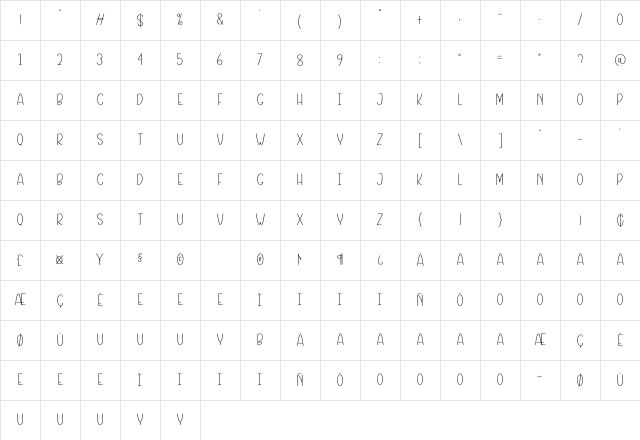
Happines Christmas Regular Free Font
Happines Christmas Regular
Design Context for Happines Christmas
Happines Christmas is a composed and adaptable typeface that performs quietly and consistently across a wide range of design contexts.